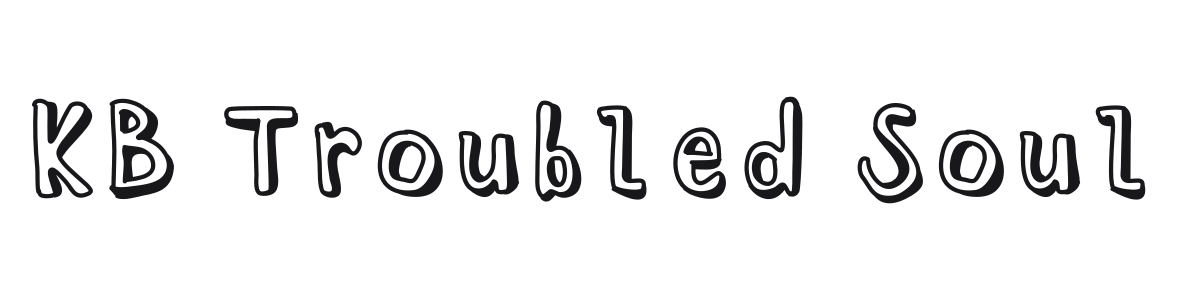
KB Troubled Soul
KB Troubled Soul is a hand-drawn outline typeface by Khrys Bosland with a loose, slightly wobbly character that feels like doodling in the margins of a notebook. The open letterforms keep things light and airy, giving it a cartoon-like playfulness that works for headlines, comic lettering, and casual branding where you want something quirky without being loud.